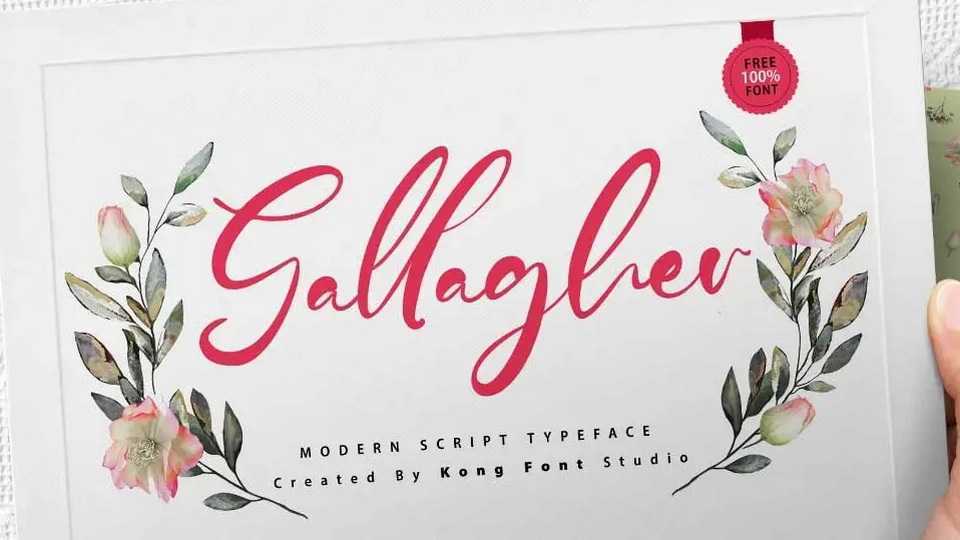
Download Gallagher font, a trendy and chic handwritten script typeface. Gallagher works great on various designs that require a relaxed and attractive touch.
Designer: Kong Font Studio